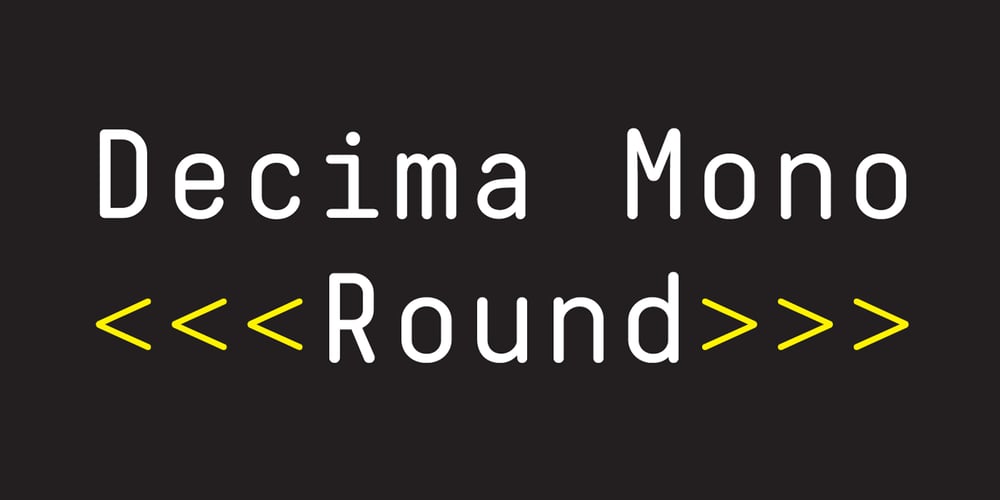
Decima Mono Round
Decima Mono Round font
Decima Mono Round Font Family was designed by Ramiz Guseynov and published by TipografiaRamis. Decima Mono Round contains 6 styles and family package options. Decima Mono Round – another addition to the Decima fonts family. Decima Mono Round is a modern monospaced condensed sans serif family with classic geometric design, built in three weights and six styles. The letterforms in roman style are techno (engineered) in appearance, while italics remind one of elegant handwriting balanced with Roman geometry. The typeface is released in OpenType format with extended support for most Latin languages, as well as Cyrillic.